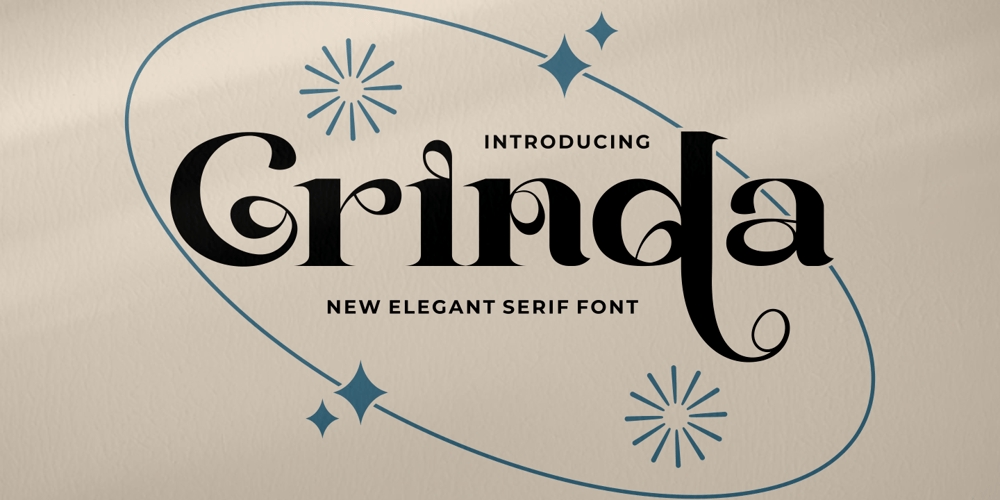
Grinda Font Family was designed by Putra Novembria Candra Kusuma and published by Putracetol. Grinda contains 2 styles and family package options. Introducing the stunning and sophisticated Grinda font, an elegant serif typeface inspired by luxury classic covers and combined with modern typeface style. With 534 glyphs and 359 alternate characters, Grinda provides an extensive range of display combinations for lettering, giving you endless design possibilities.Grinda comes with a variety of OpenType features including alternates and end swashes, making it easier to create beautiful and unique lettering. This font also supports multiple languages, making it versatile and accessible for designers around the world.Perfect for logotypes, headings, covers, posters, logos, quotes, product packaging, headers, merchandise, social media, greeting cards, and much more, Grinda will elevate your designs to the next level of elegance and sophistication.To access the alternate glyphs, you’ll need a program that supports OpenType features such as Adobe Illustrator CS, Adobe Photoshop CC, Adobe InDesign, and Corel Draw. In the zip package, you’ll find the Grinda font files in OTF, TTF, and WOFF formats, and it comes with uppercase and lowercase letters, as well as numbers, punctuation, and symbols.